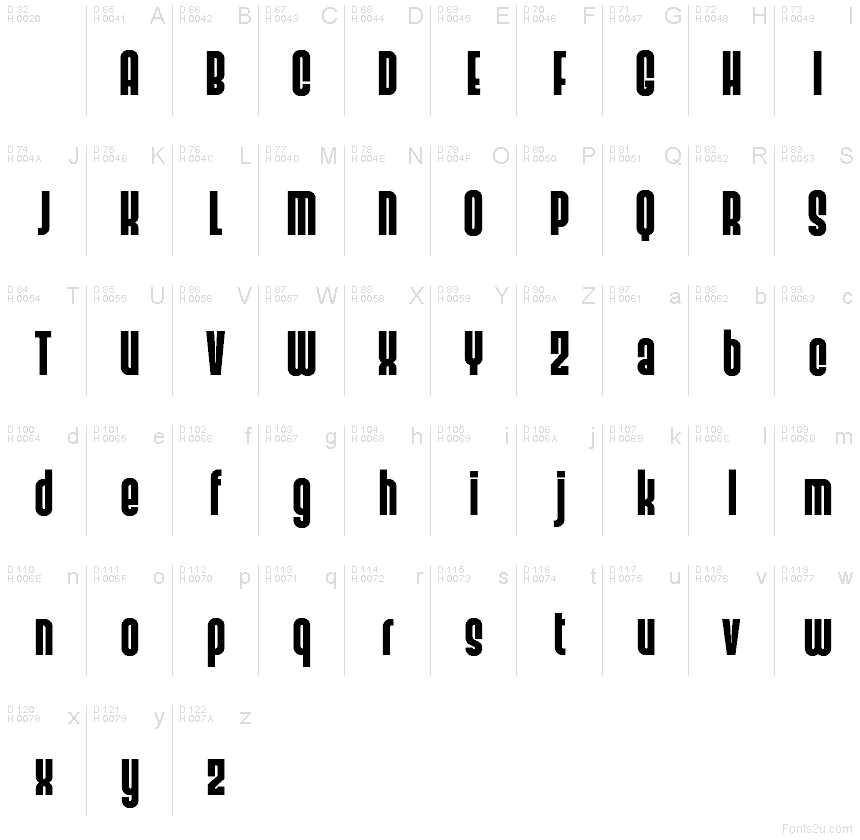
CS Chastain Regular Demo
CS Chastain font by Craft Supply Co. is a free retro display type with a strong geometric structure and uniform letter design. The condensed glyphs express modernity yet maintain an authoritative presence for bold visual impact. The overall look has a vintage touch which gives it that true retro feel suitable for many projects.
The creative possibilities are endless with this font! Use it in logotype, branding, magazines, newspapers, covers, advertisements, labels, packaging (especially wine), event posters such as concerts and movie nights as well as quotes and adventure book titles.